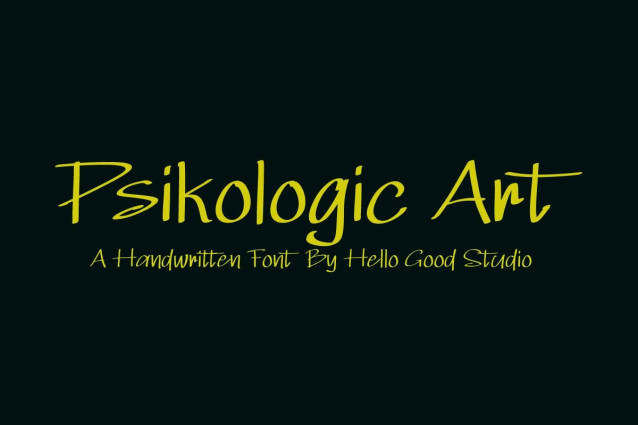
Psikologic Art Font
Psikologic Art Font is a simple and friendly handwritten font. Its natural and unique style makes it incredibly fitting to a large pool of designs. The only limit is your imagination!